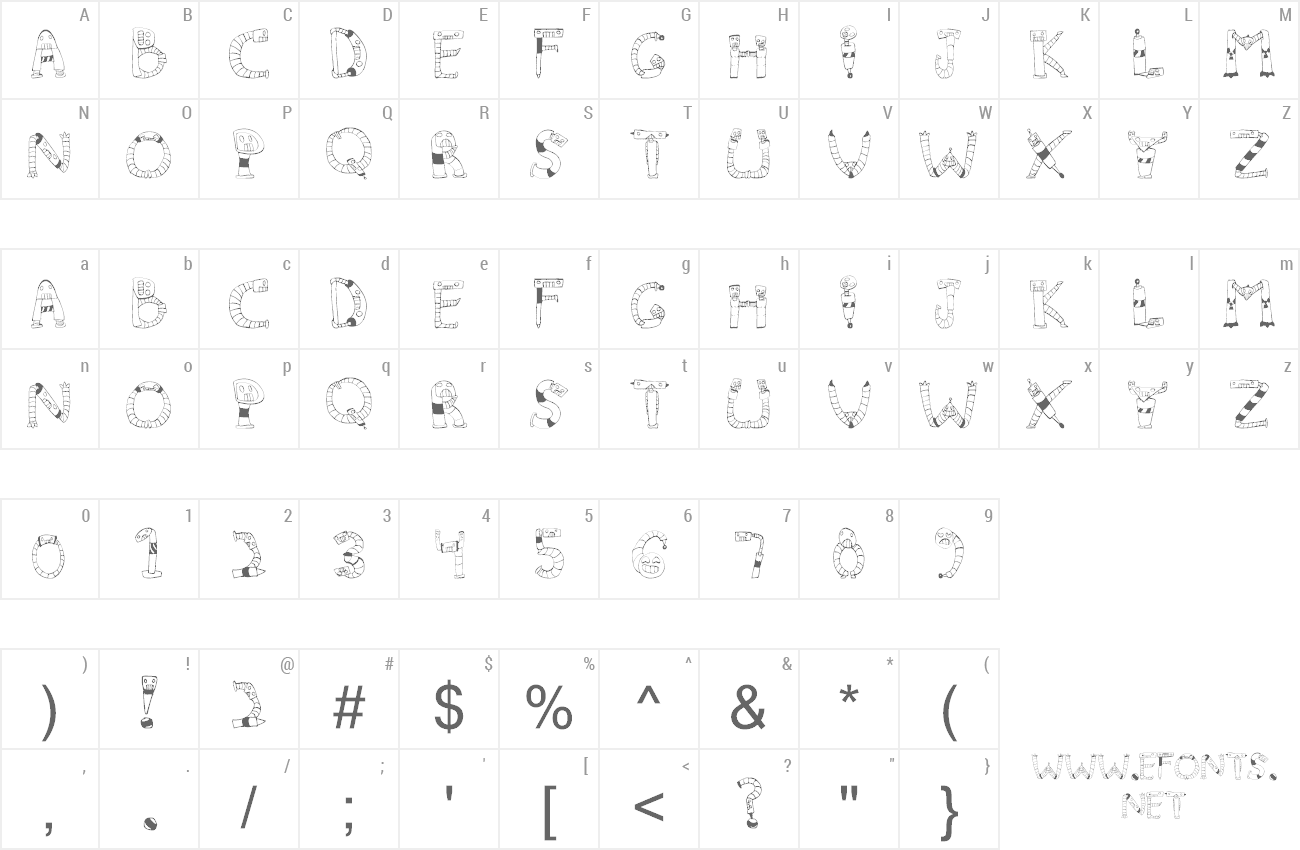
| Font name: | Clink Clank |
| Author: | Jessica E. |
| Note by Jessica E. | |
| Write with robots! It's the only way to go. Includes caps, punctuation, and numbers. |